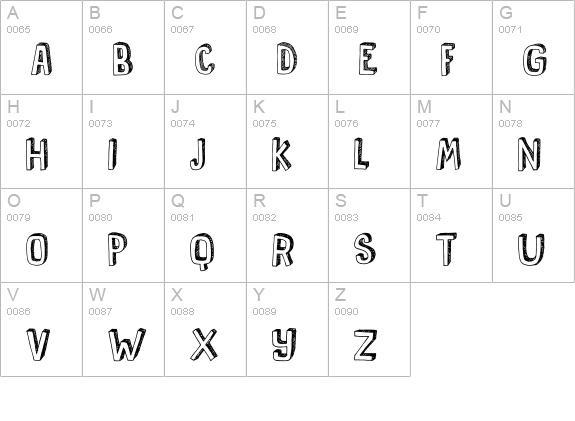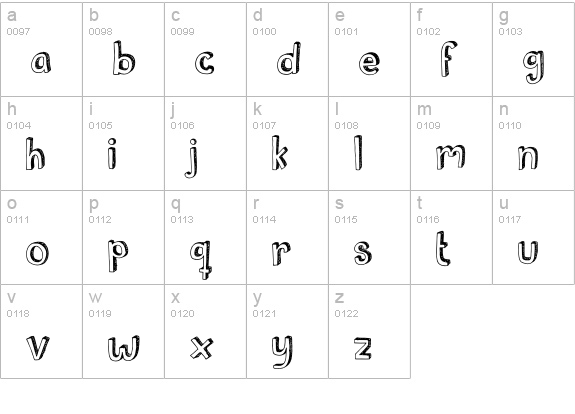
DK Pusekatt Font Details
Introducing DK Pusekatt, a captivating font that effortlessly combines elegance with playfulness. This unique typeface is the perfect choice for those seeking a touch of sophistication in their designs, while still embracing a sense of whimsy and charm. With its graceful curves and intricate details, DK Pusekatt stands out from the crowd, making a statement wherever it is used. Whether you're designing logos, invitations, or social media graphics, this font will add a touch of magic to your creations. One of the most remarkable aspects of DK Pusekatt is that it is free. Yes, you heard that right! This stunning font is freely available to download at FontsMarket.com. Now, you can elevate your designs without breaking the bank. Downloading DK Pusekatt is a breeze, and once you have it, the possibilities are endless. Its versatility allows it to be used in a variety of design projects, from branding to packaging and beyond. Its legibility ensures that your messages will be conveyed clearly and effectively. Whether you're a professional designer or a hobbyist, DK Pusekatt is a must-have font in your collection. Its timeless beauty and free availability make it an irresistible choice. So, why wait? Head over to FontsMarket.com and download DK Pusekatt today. Unleash your creativity and let this font take your designs to new heights.